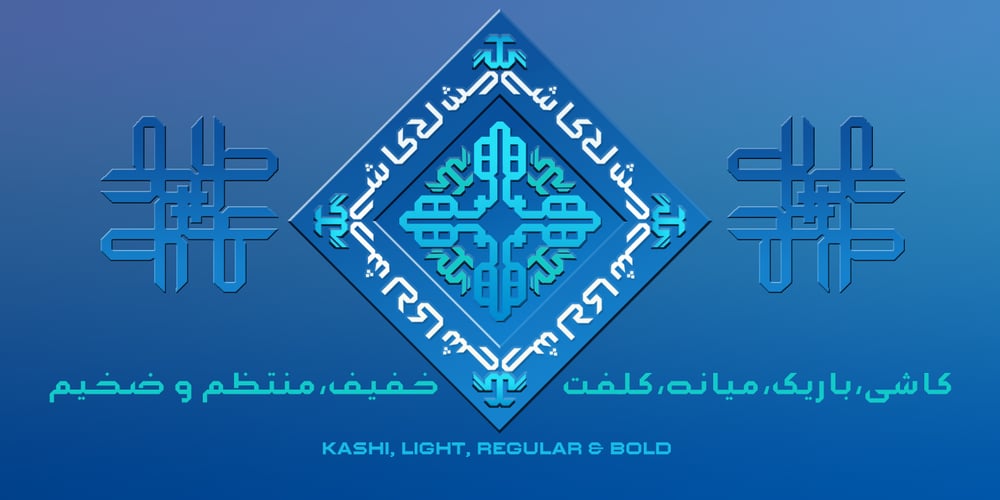
Kashi
Kashi font
Kashi Font Family was designed by Naghi Naghashian and published by Naghi Naghachian. Kashi contains 3 styles and family package options. Kashi is the Persian word for tile. This font is inspired from building decorations of 16th and 17th centuries in Iran. It is extremely legible even in very small size. Kasha design fulfills the following needs: A Explicitly crafted for use in electronic media fulfills the demands of electronic communication. B Suitability for multiple applications. Gives the widest potential acceptability. C Extreme legibility not only in small sizes, but also when the type is filtered or skewed, e.g., in Photoshop or Illustrator. Nima’s simplified forms may be artificial obliqued in InDesign or Illustrator, without any loss in quality for the effected text. D An attractive typographic image. Kasha was developed for multiple languages and writing conventions. Kashi supports Arabic, Persian and Urdu. It also includes proportional and tabular numerals for the supported languages. E The highest degree of calligraphic grace and the clarity of geometric typography.